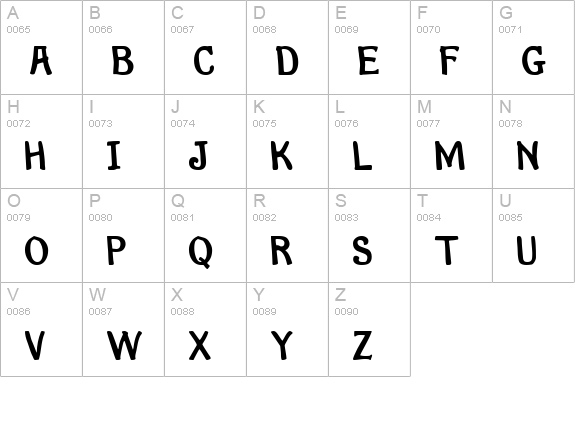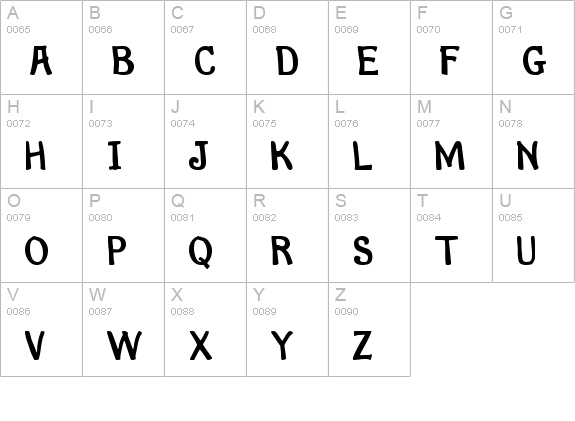
Pen Mark MF Bold is a strong, high-contrast variant in the Pen typeface family \xE2\x80\x94 well suited to headlines, attention-grabbing titles, and strong calls-to-action.
Pen Mark MF Bold is a striking and bold typeface that exudes confidence and personality. With its thick, expressive strokes and unique pen mark-inspired design, this font is perfect for making a statement in your projects. Whether you're creating posters, logos, or social media graphics, Pen Mark MF Bold will ensure that your message stands out and grabs attention. Best of all, Pen Mark MF Bold is available for free download at FontsMarket.com. This means that you can easily access this eye-catching font and incorporate it into your designs without any cost. Don't miss out on the opportunity to add a touch of creativity and flair to your projects with Pen Mark MF Bold. Download it now and let your creativity shine!